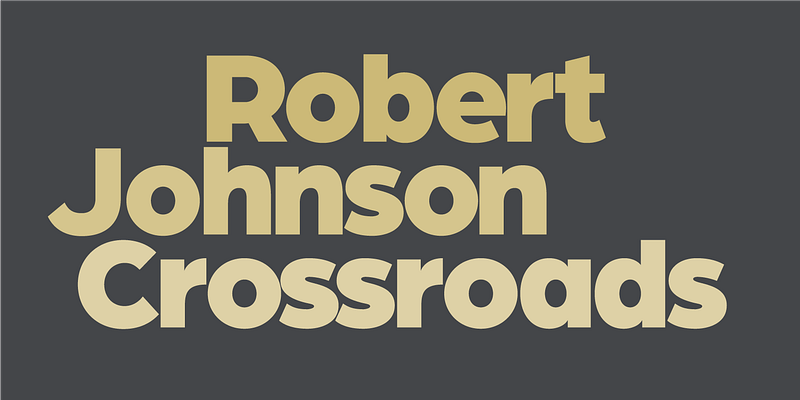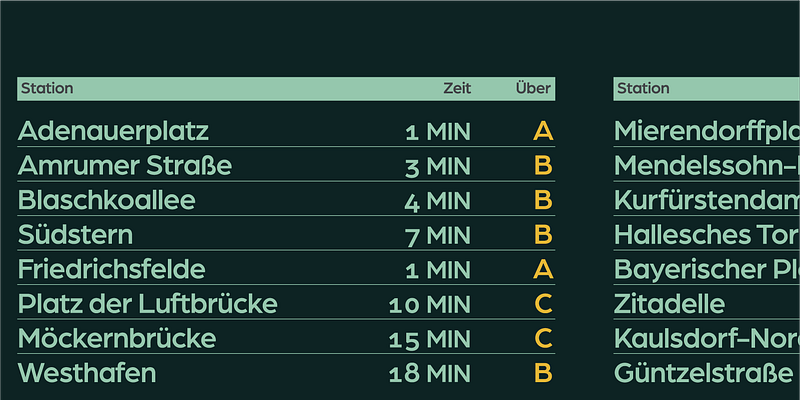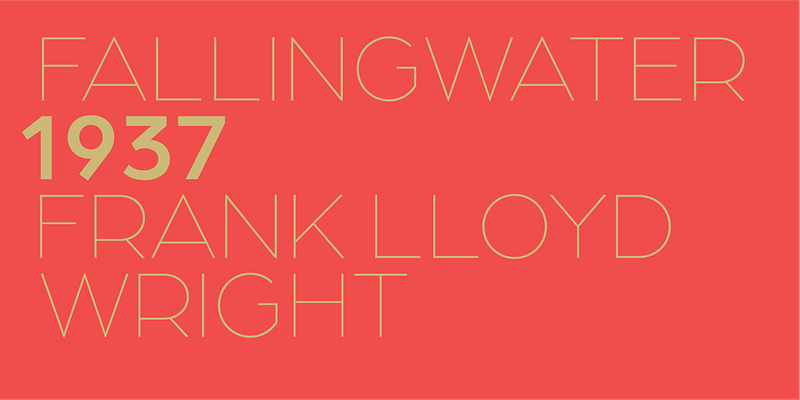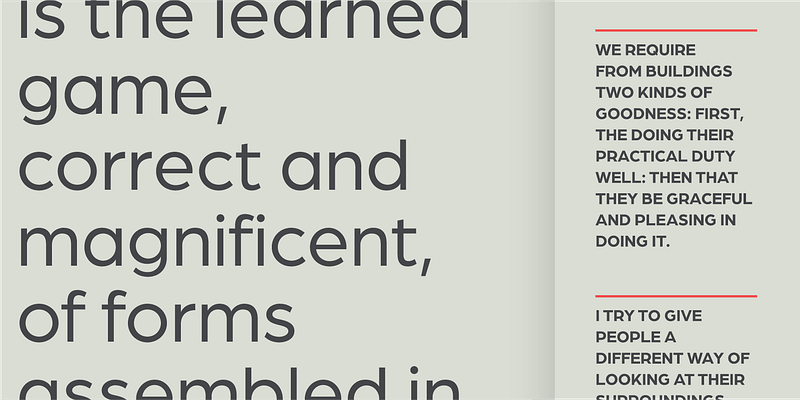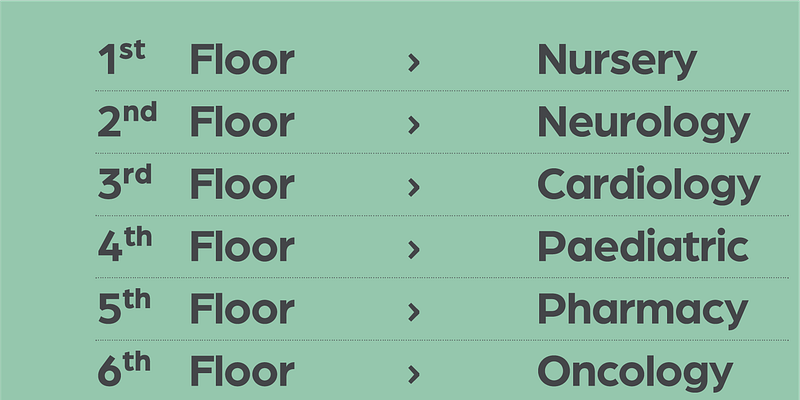
With Arboria, Josema Urós started from the concept of an archetypal architectural sans. He then introduced grotesque elements into the geometric forms, making the letters warmer. With their generous x-height and open apertures, Arboria’s wide characters look modern, yet bear a refined art deco air, and offer a friendly, outgoing alternative to the more reserved designs of the genre. With six weights in roman and italic, the family works well in editorial settings; Type-Ø-Tones 2013–2017